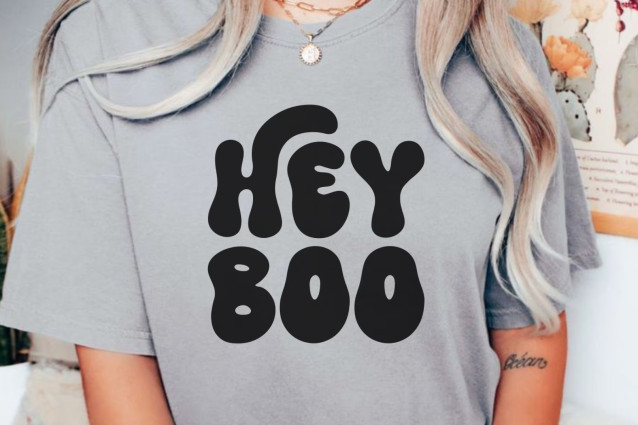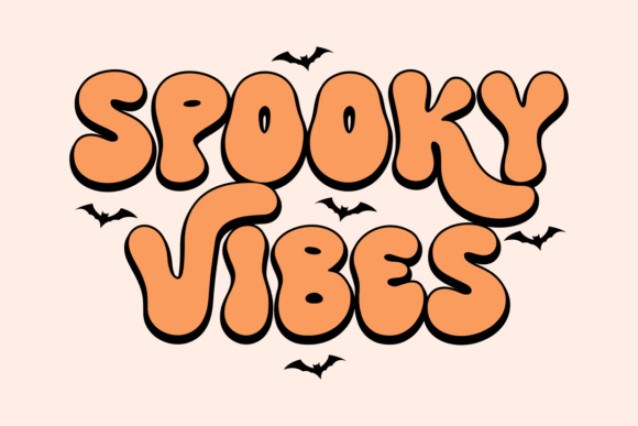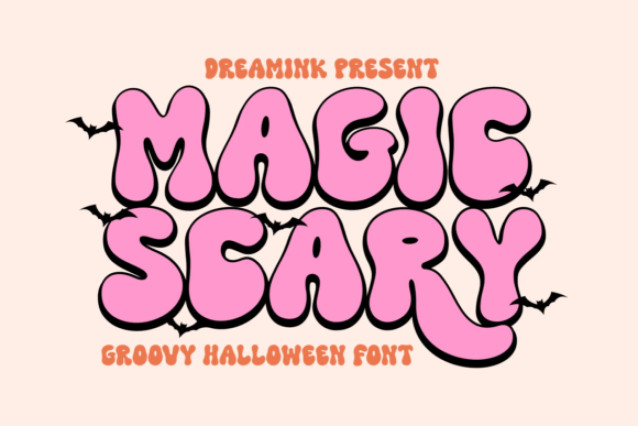
Immerse yourself in the nostalgic charm of the Magic Scary Font. This retro-inspired, groovy typeface encapsulates the creepy allure of October celebrations, creating a captivating touch like no other. Ideal for Halloween event invites, digital content, and other bewitching décor elements, the Magic Scary font effortlessly sparks a mesmerizing, spine-chilling aura perfect for the spookiest season of all. Alternate each stroke for an even more dramatic effect, letting you embrace the wicked enchantment of Halloween like never before.